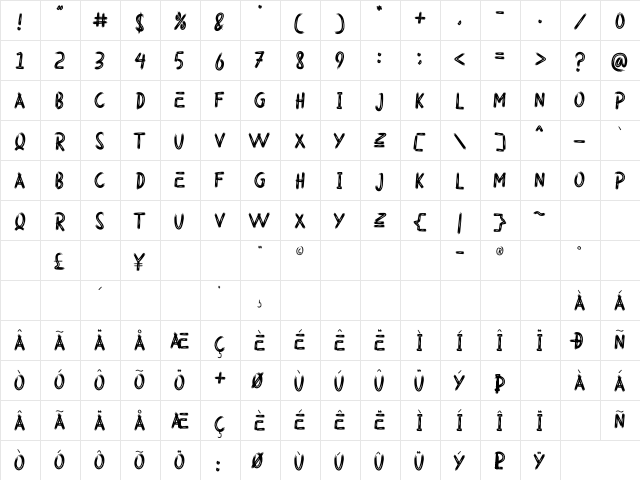
HALLOQUEEN Regular Font Preview
HALLOQUEEN Regular
HALLOQUEEN Regular Font Details
Design Context for HALLOQUEEN Typeface
HALLOQUEEN is a composed and adaptable typeface that performs quietly and consistently across a wide range of design contexts.